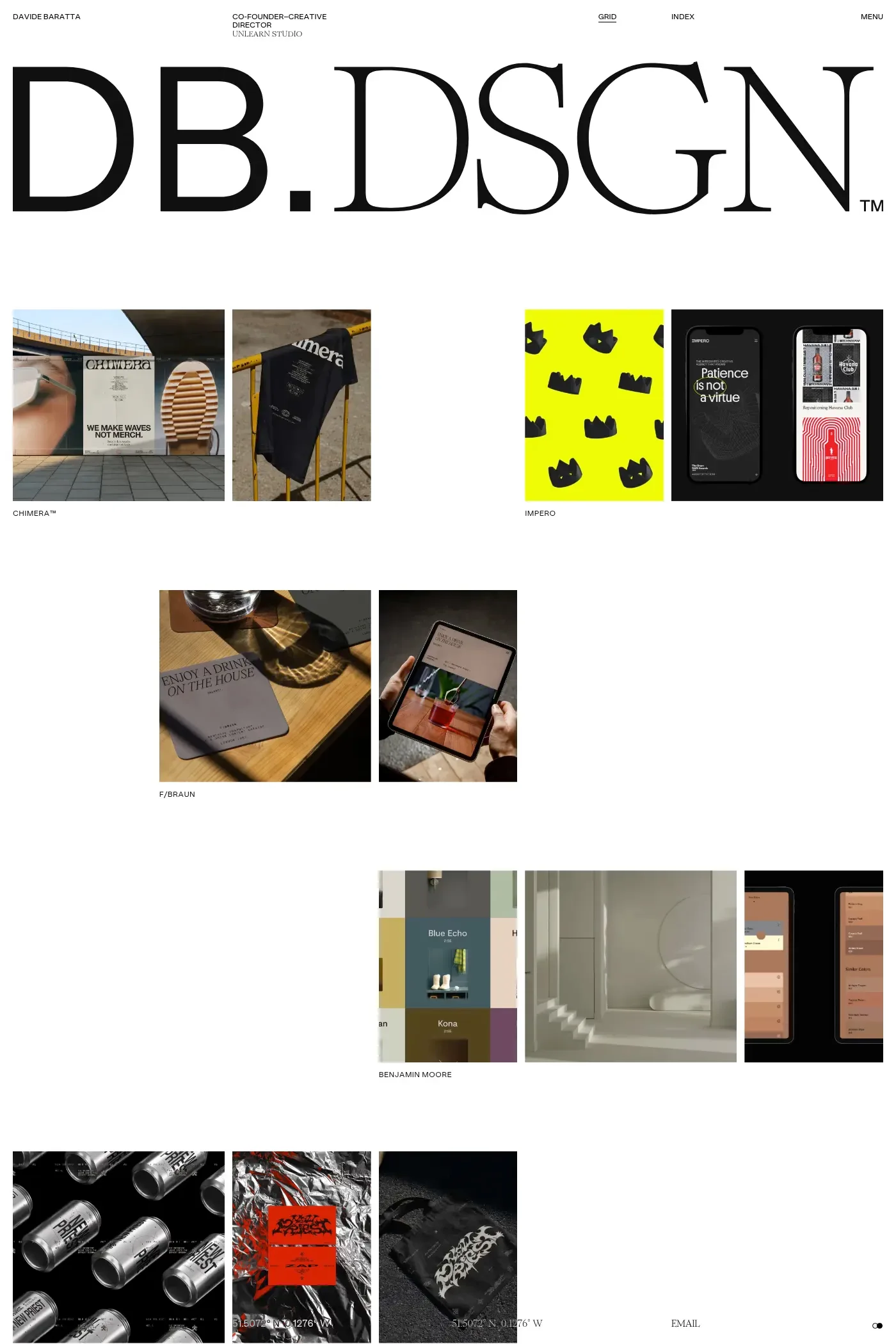
Romie, a calligraphy-inspired display font by Margot Lévêque, carries forward the rich legacy of influences from Lubalin and Bookman. It supports over 300 languages from all over the world, including most European languages, a number of languages from the Americas and Africa, as well as Vietnamese. It’s available in 12 styles total.
A1 features 2 websites using Romie, including Sarah & Matt and Davide Baratta. They lean towards Typographic, Serif, and Elegant design styles, and they’re most often built with Next.js and Astro.